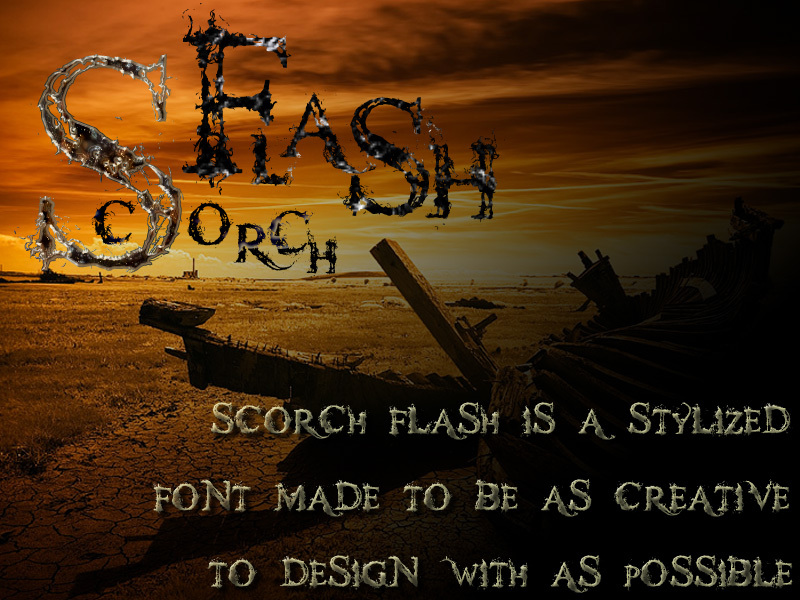
Scorchflash is a free distorted display font with ragged serif forms and the look of ink scraped across rough paper. Its uneven strokes shift from narrow scratches to dense battered patches, and several letters trail into sharp hooks or sweeping tails. No edge feels mechanically clean.
Used as a distressed mark, it suits horror film titles and metal album covers. The torn contours also fit Halloween event posters, dark fantasy game packaging, and merchandise built around decay or menace. In those settings, the lettering can become part of a scorched emblem or damaged surface, not just a line of type.